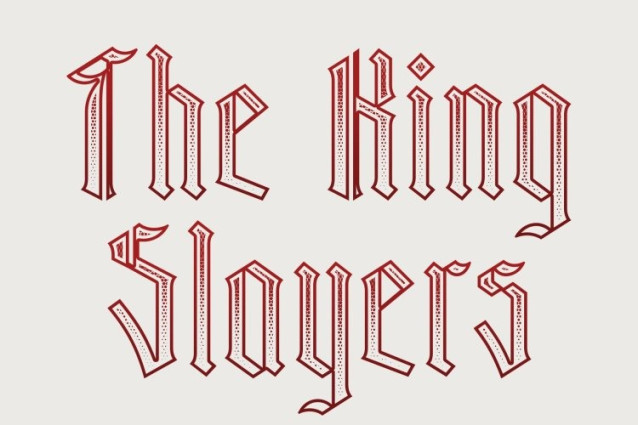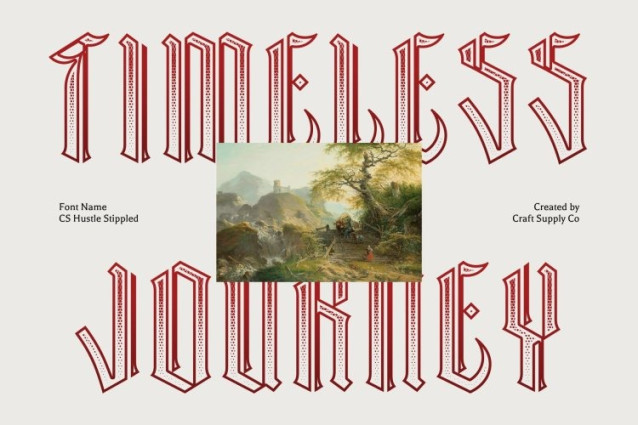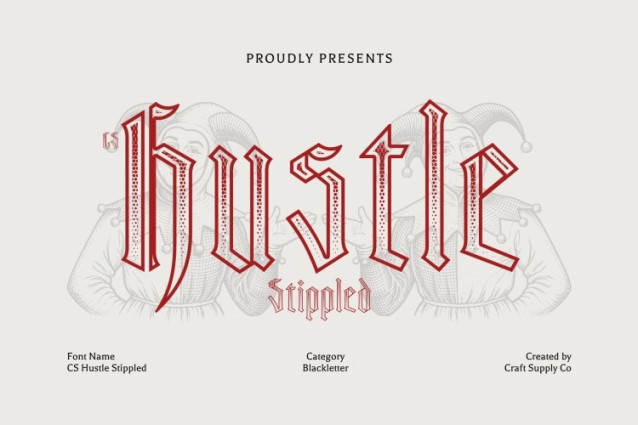
CS Hustle Stippled Font
CS Hustle Stippled Font – This reimagines traditional blackletter typography with a contemporary edge. Its sharp, angular letterforms and strong strokes preserve the spirit of historic Gothic script while introducing a cleaner, more refined structure suited for modern design.
Bold, Edgy Aesthetic with Refined Details
The font balances dramatic blackletter flourishes with streamlined forms, creating a powerful yet polished visual presence. Thick strokes and intricate detailing provide intensity and character, while improved spacing and clarity enhance readability and versatility.
Perfect for Strong Branding and Impactful Design
Designed to stand out, this font is ideal for logos, branding, posters, merchandise, and promotional materials that need a commanding typographic voice. Its bold structure communicates strength and confidence while maintaining a contemporary, professional finish.
Tradition Meets Modern Sophistication
By blending historic Gothic influence with modern refinement, this font delivers a distinctive typeface that feels both timeless and current perfect for projects seeking a bold, memorable, and authoritative style.